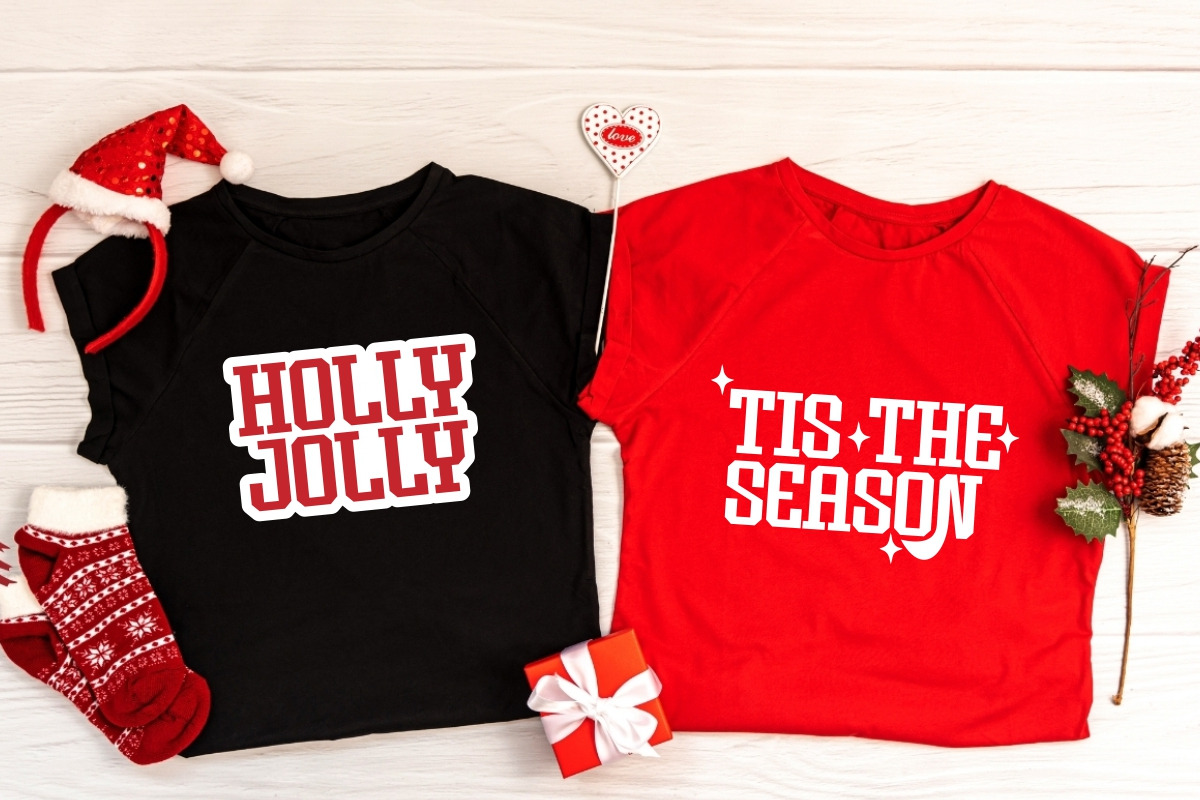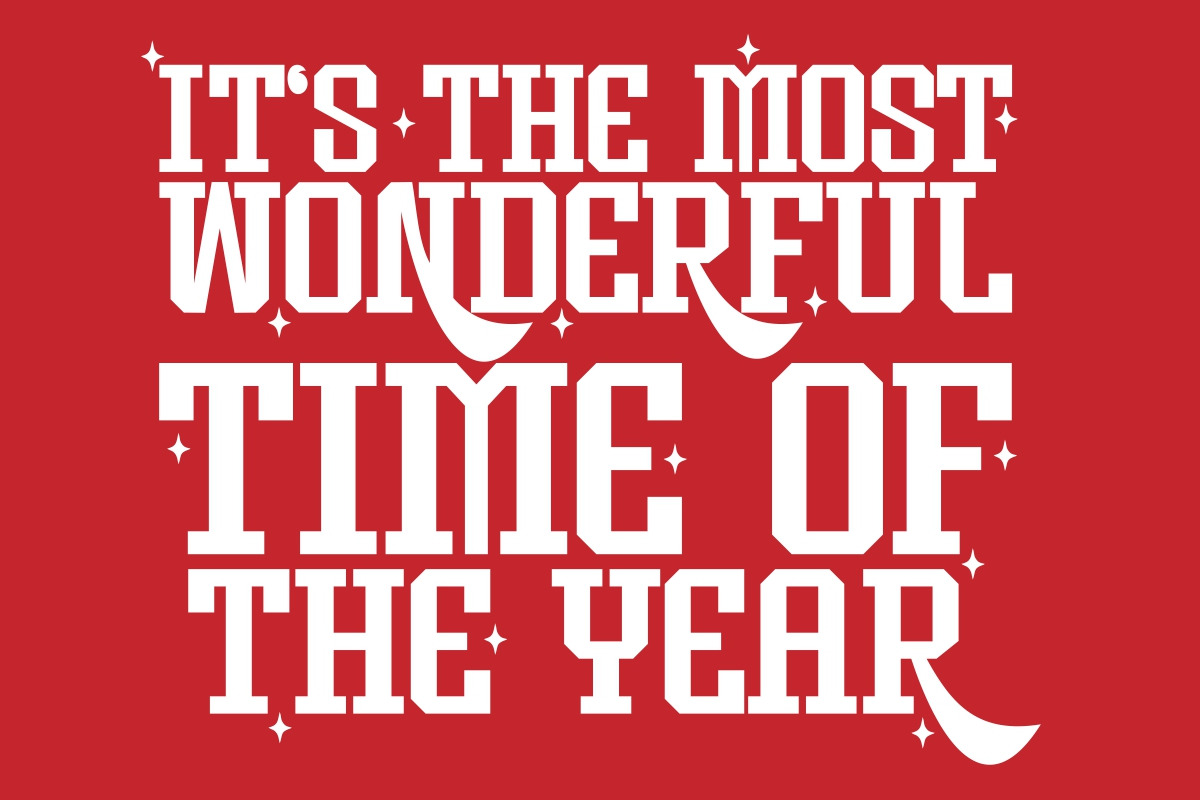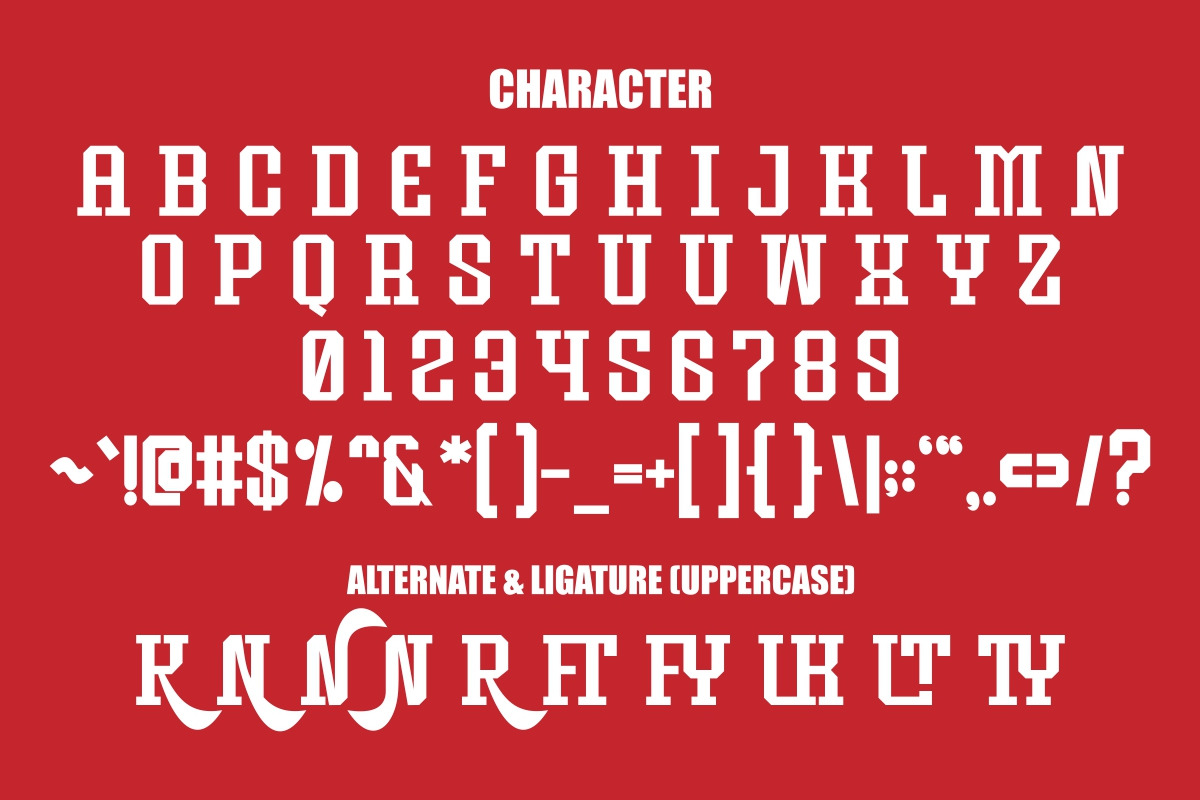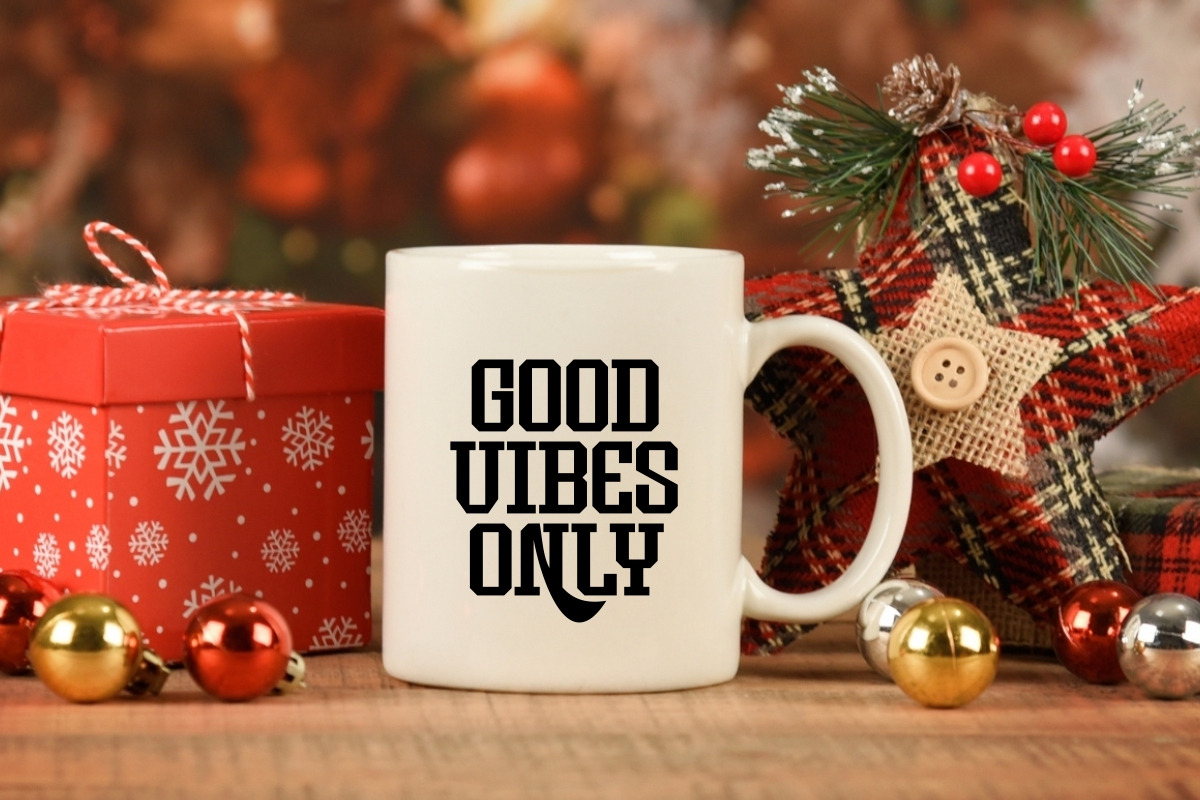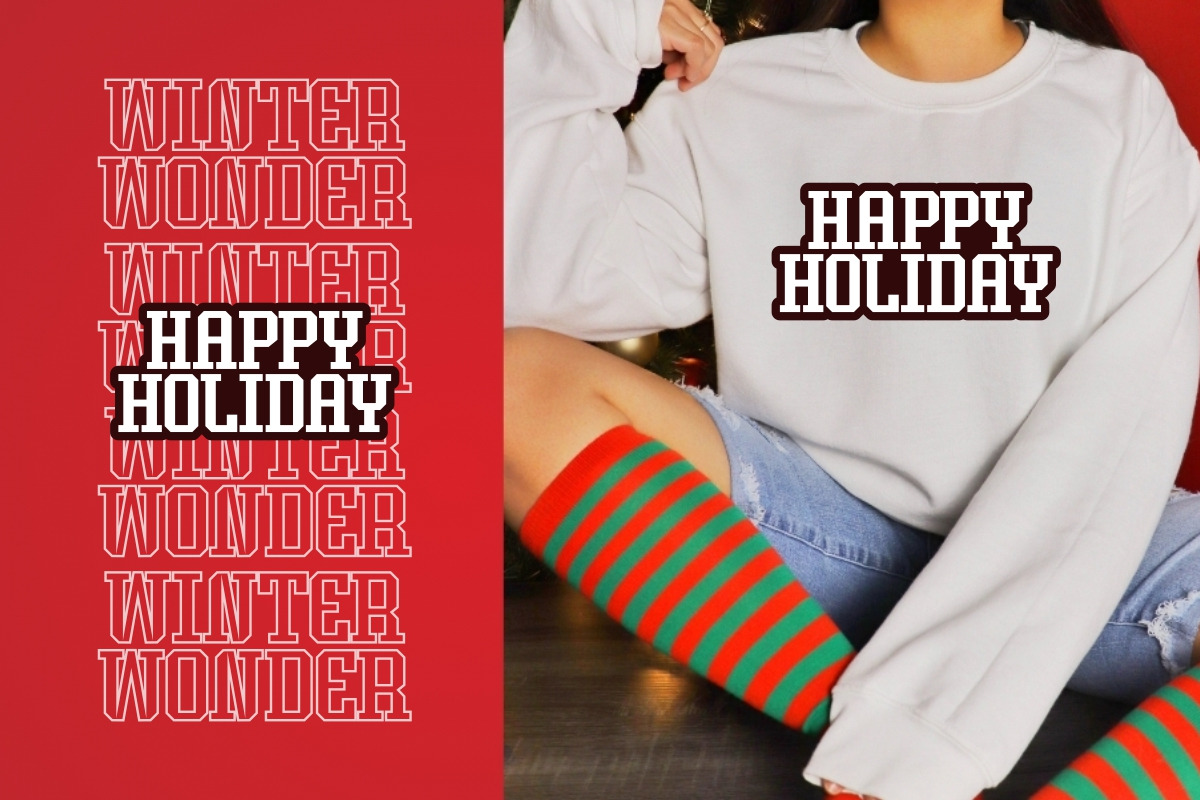
Winter Wonder - Bold Slab Serif
Winter Wonder is a modern and bold slab serif font inspired by gingerbread man designs and the festive warmth of Christmas. Perfect for holiday quotes, apparel mockups, stickers and tumbler. This font brings a cozy and nostalgic touch, adds festive charm to every project.